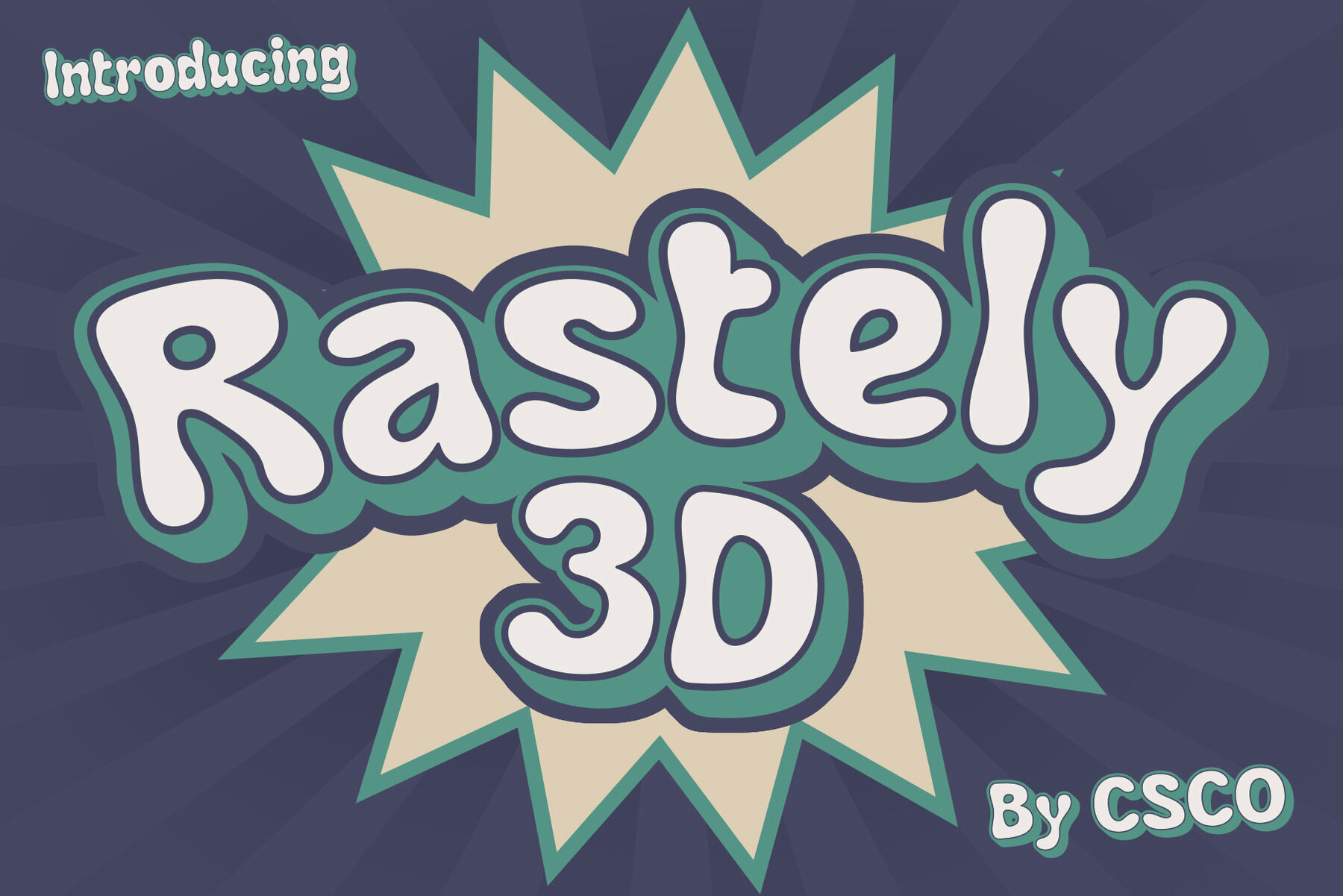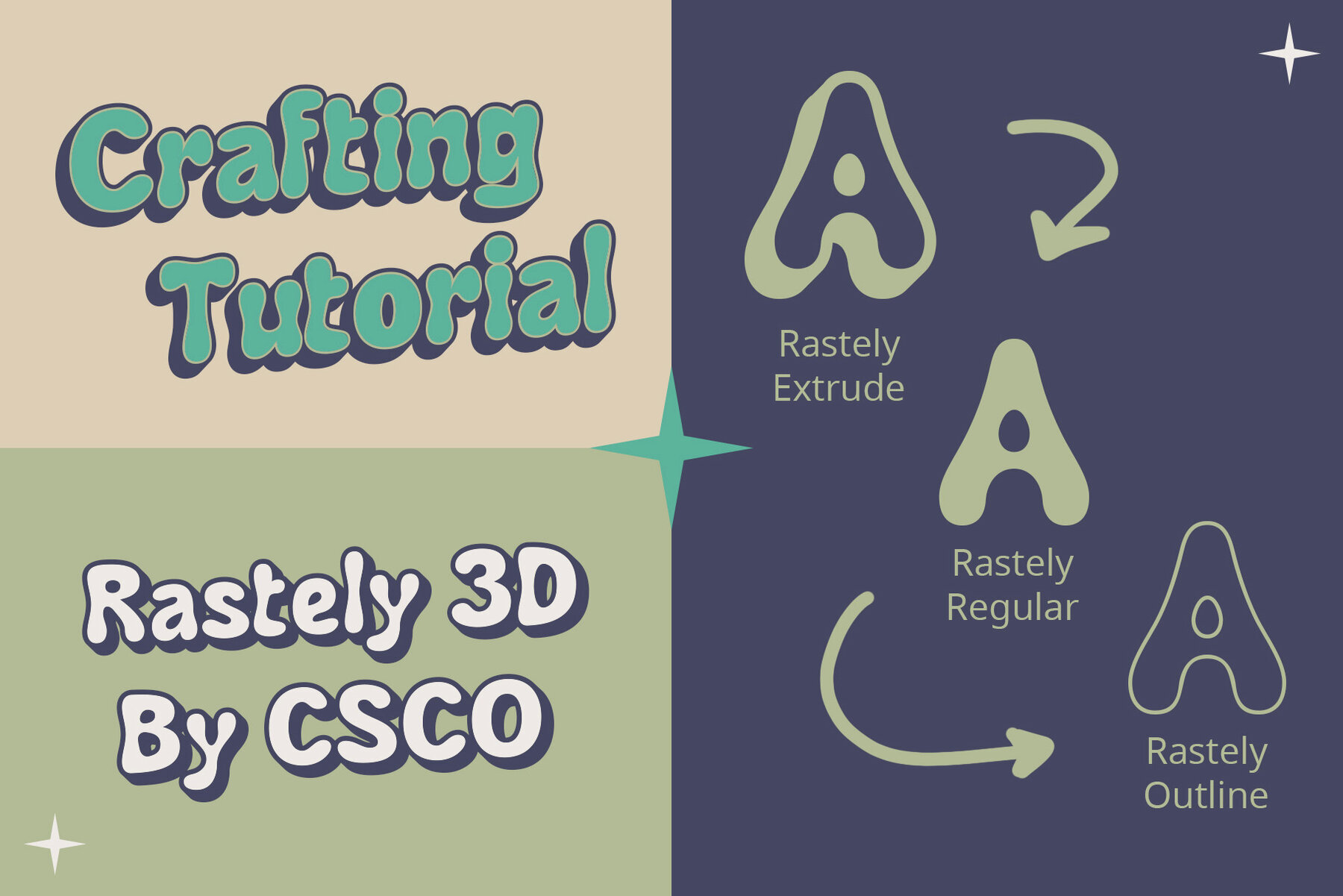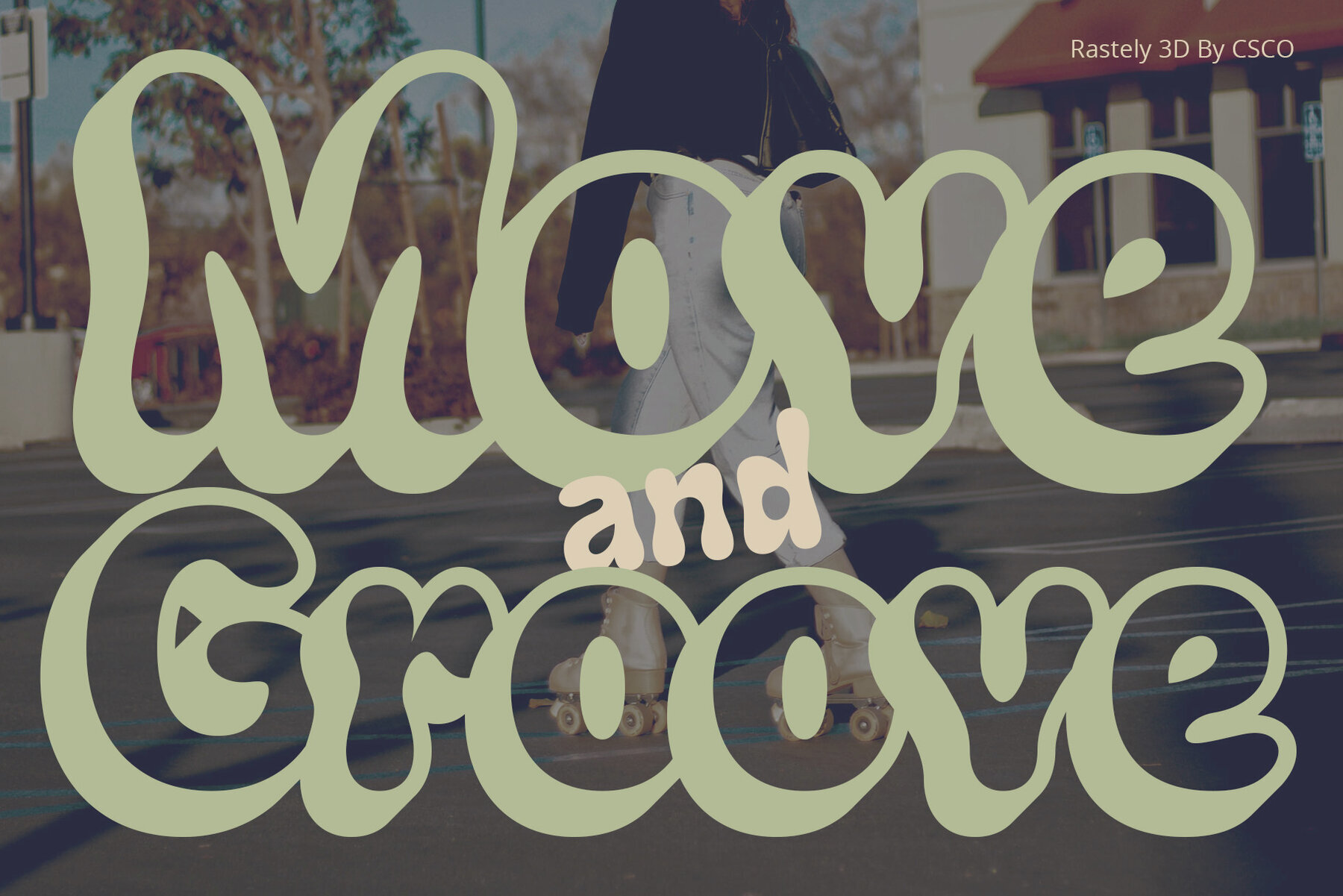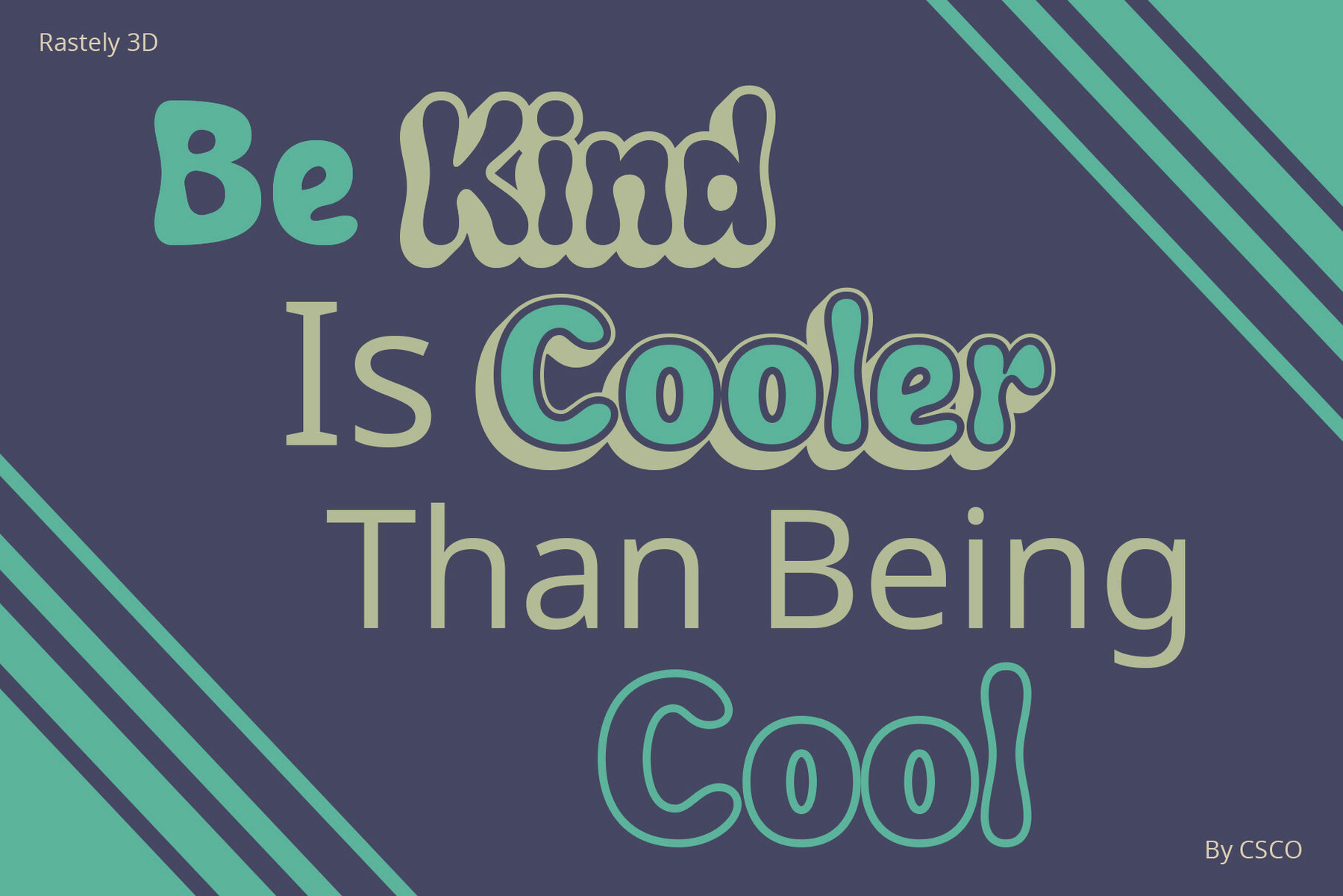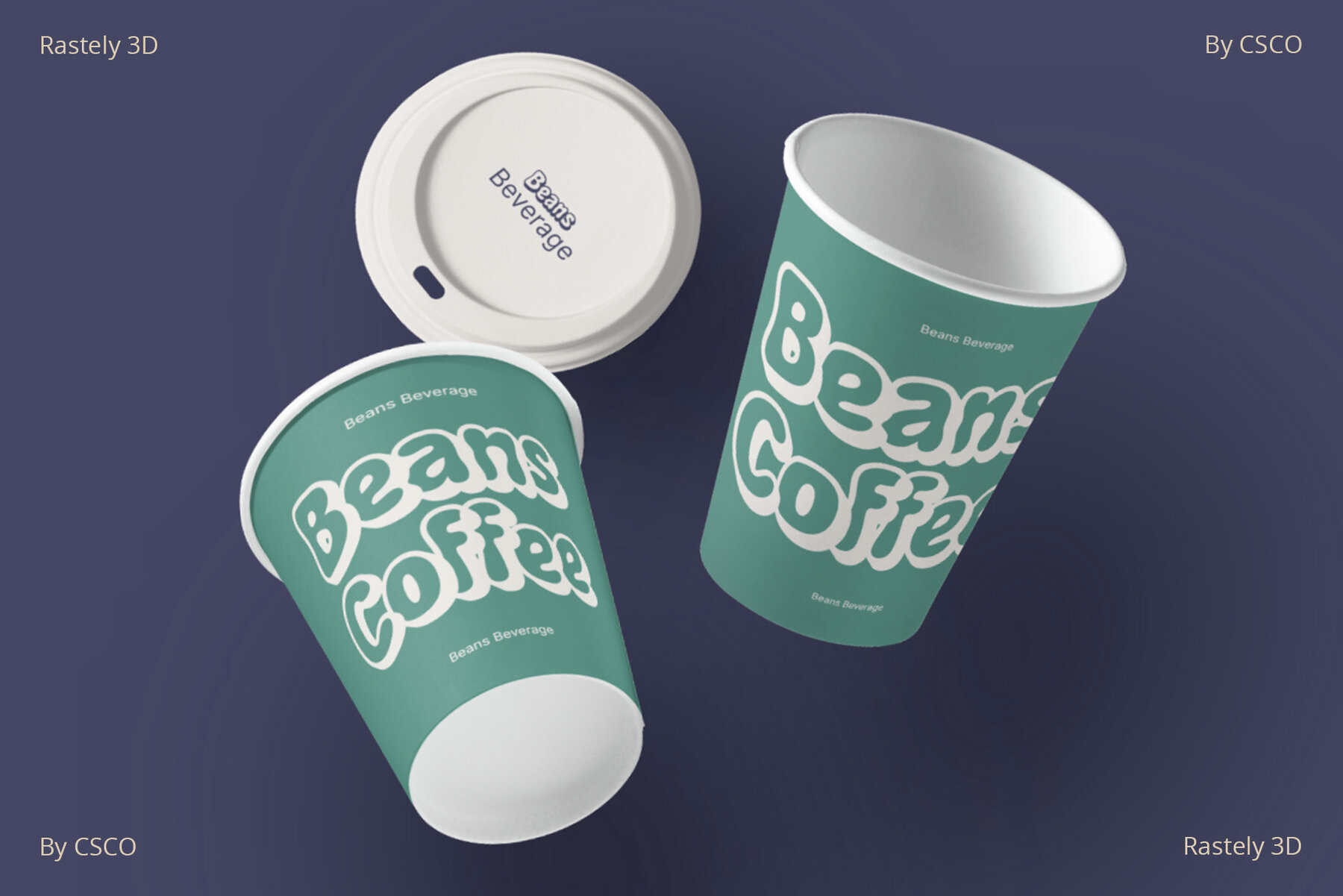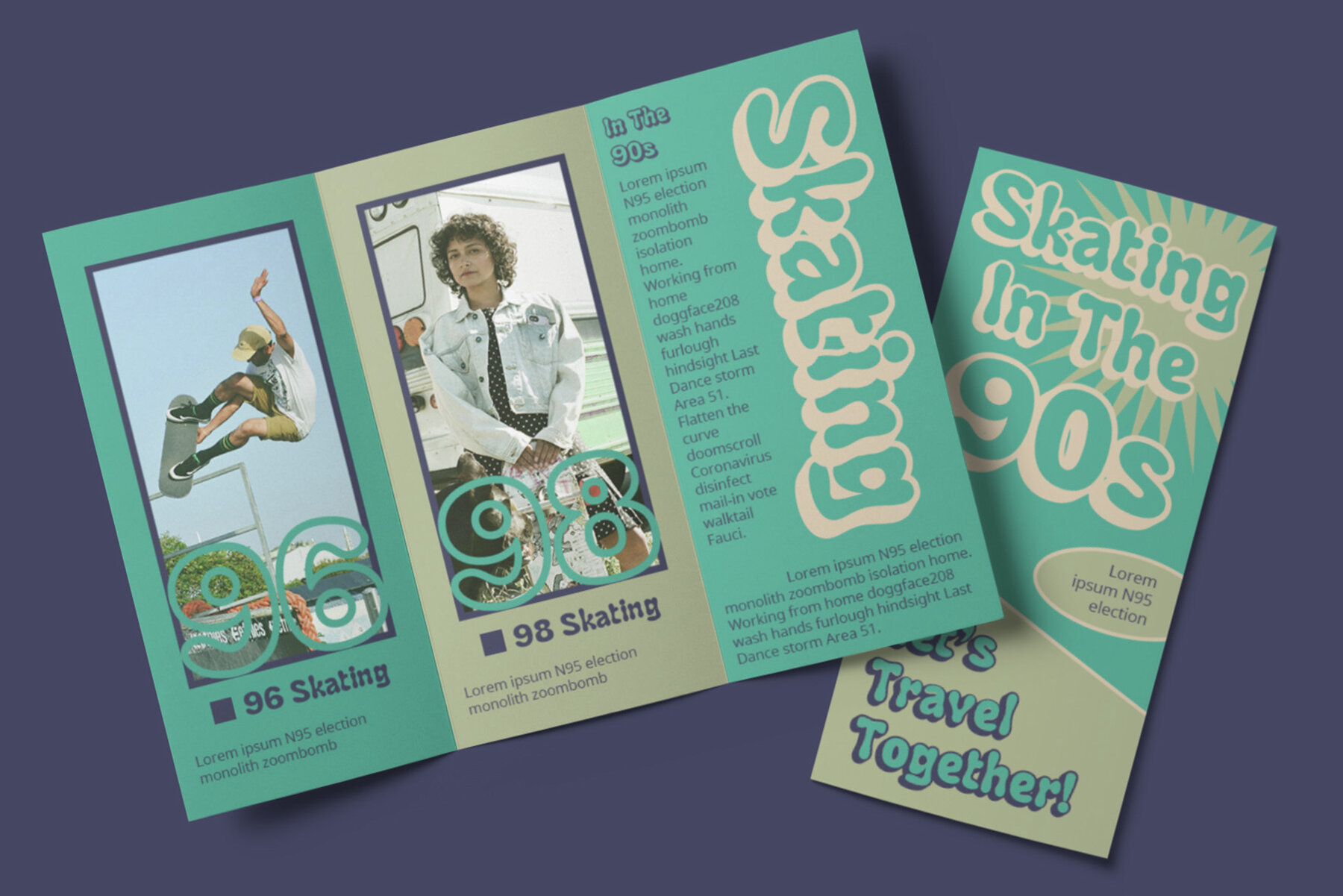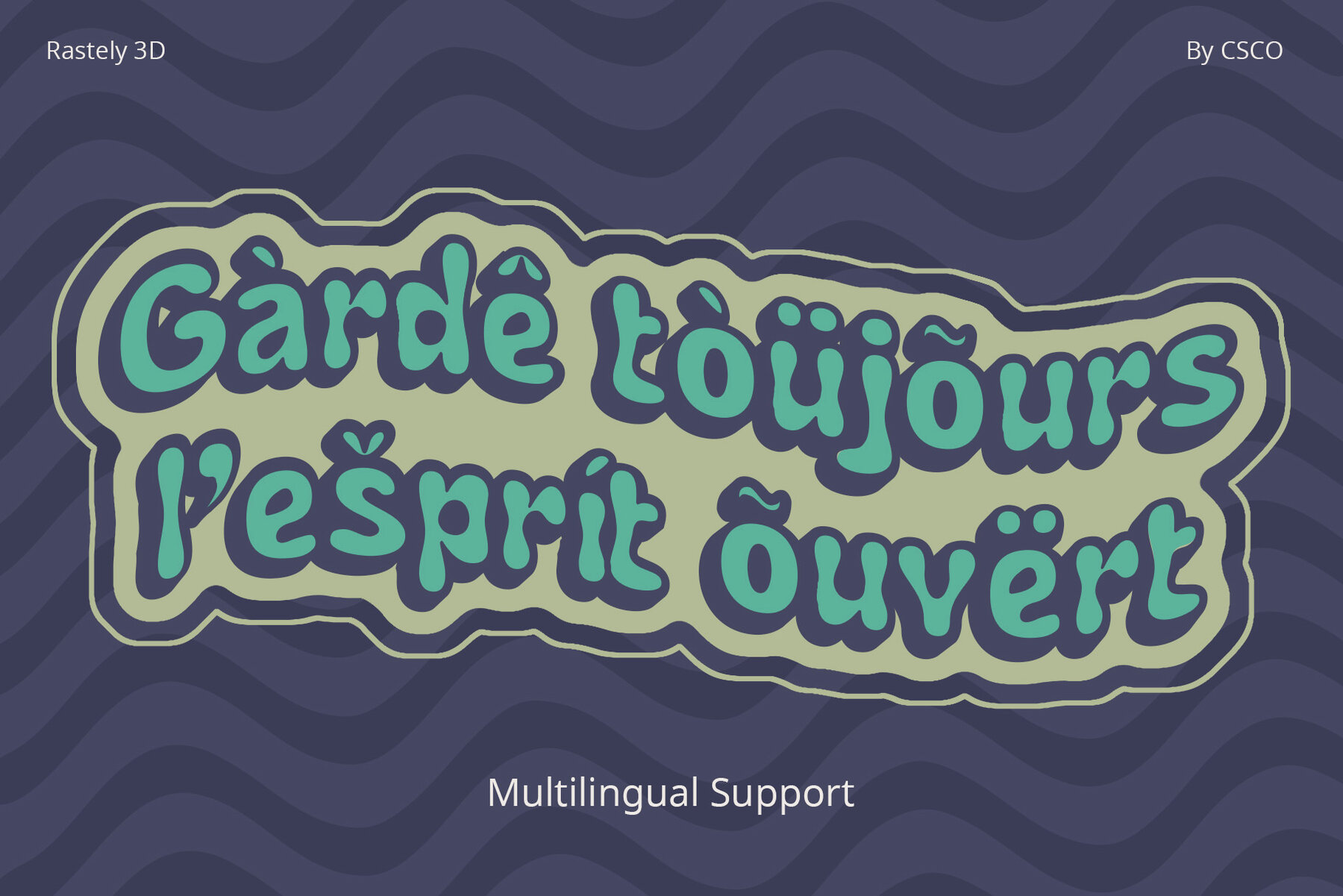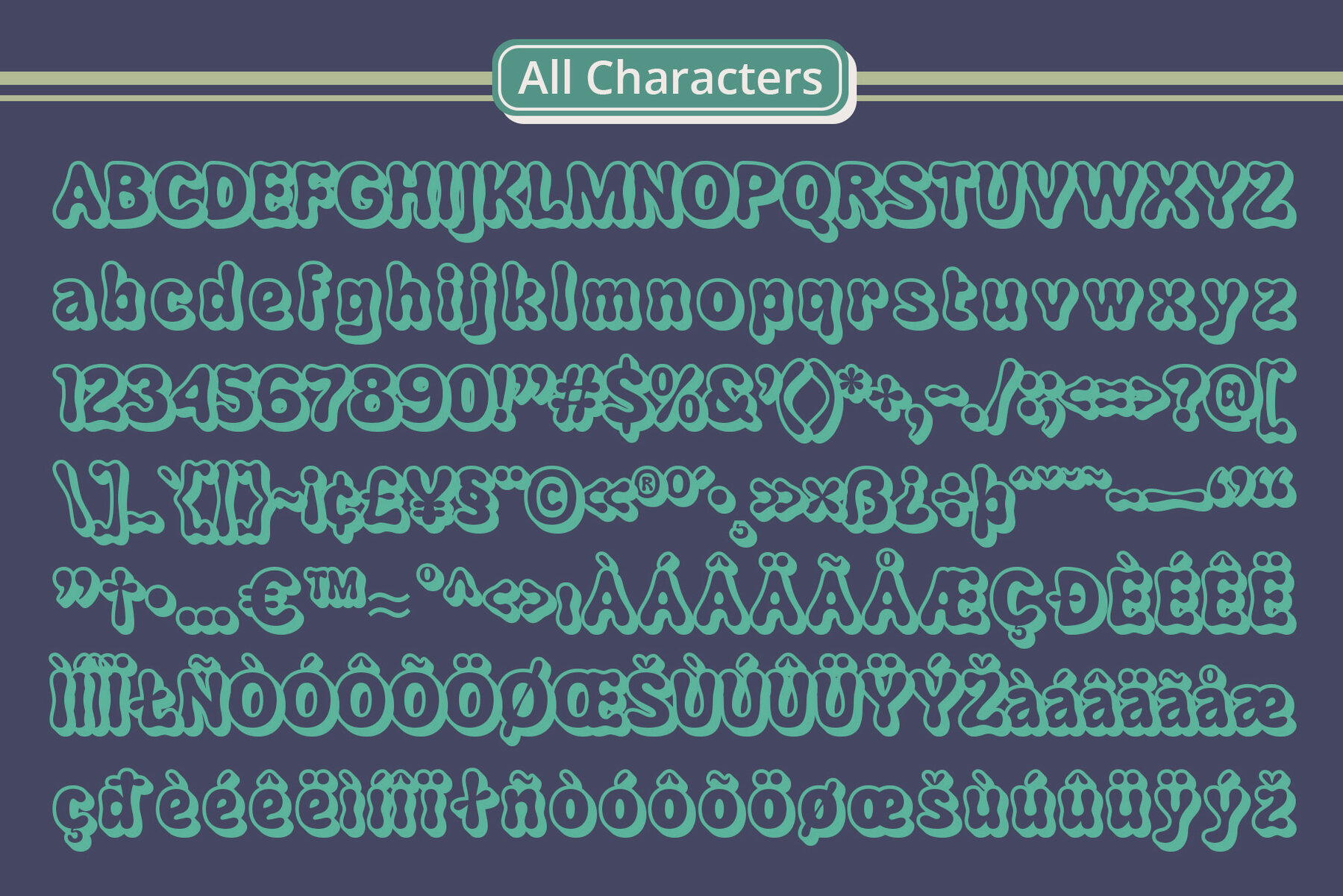
Rastely 3D Font
Step into the whimsical world of Rastely 3D, a font inspired by psychedelic, trippy aesthetics, bringing playful vibes to your designs. Rastely 3D transcends the ordinary with its captivating 3D effect. Utilizing clever extrude and outline techniques, each character boasts a dynamic and lively appearance. This font isn't just about dimension; it embodies playfulness. The vibrant letters dance with animated energy, making it perfect for projects that demand a touch of quirkiness. While embracing the trippy, Rastely 3D is versatile. It seamlessly integrates into a wide range of designs, from posters to digital art, infusing each project with vibrant character. Rastely 3D isn't just a font; it’s an adventure into the world of playful typography. Enhance your designs with this font, where every letter bursts with energetic creativity. You can use this typeface without needing any specialized software. If you have any inquiries or need assistance, please feel free to contact us. We appreciate your support in enhancing your creative projects! Best regards, Craft Supply Co.Rastely 3D Font: Playful Psychedelia in Typography
Dimensional Delight
Playfulness Personified
Versatility Meets Vibrancy
Conclusion